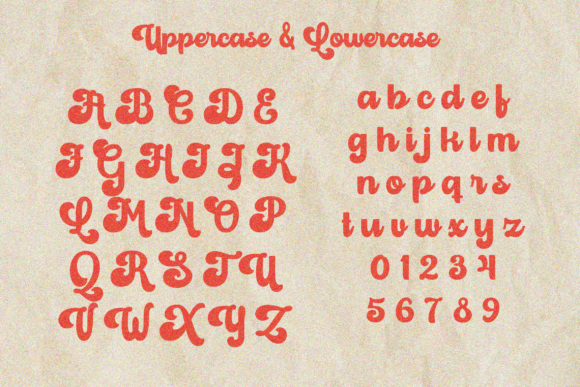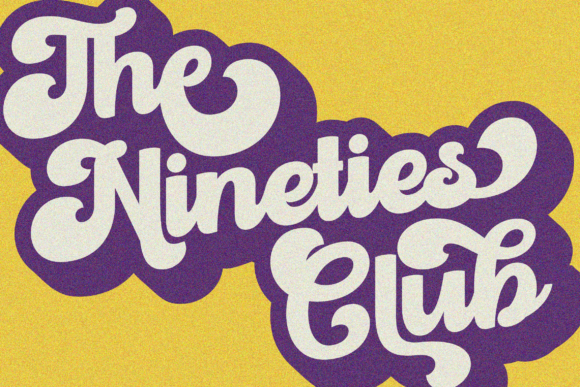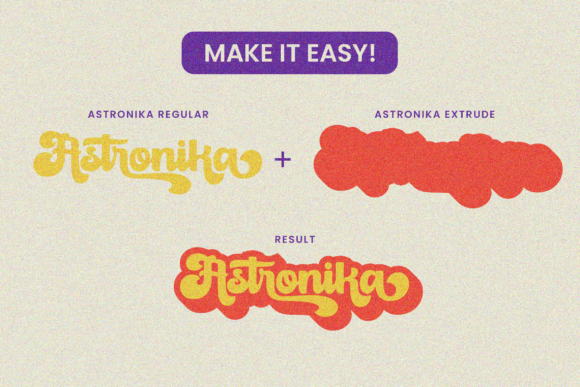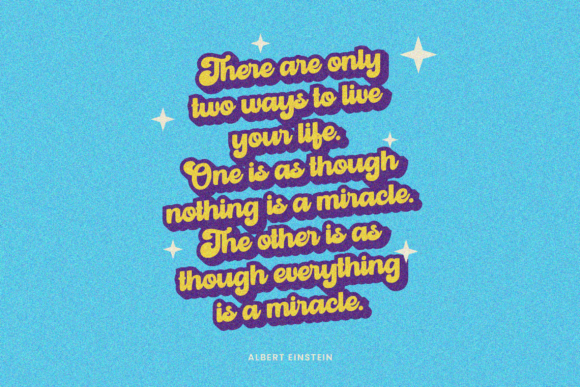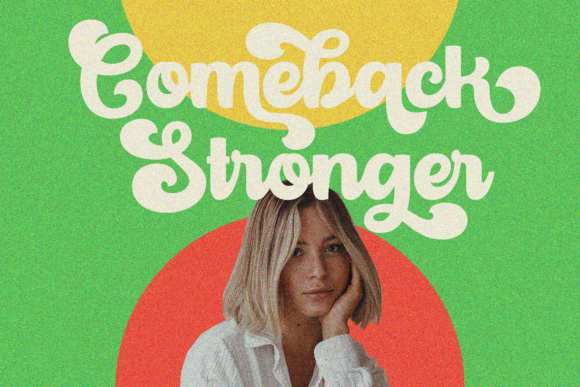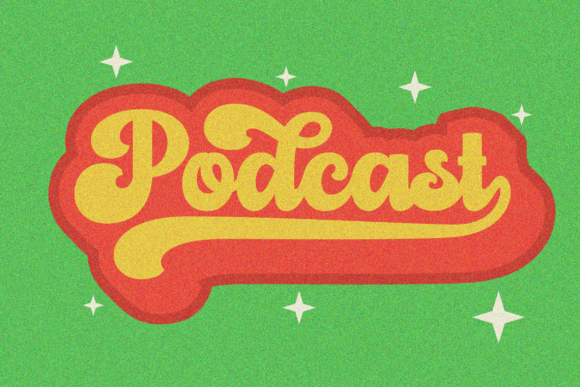
The Retro Revival: Unpacking the Astronika Font
I’ll never forget the design project that led me to discover the Astronika font. I was working on a vintage-themed poster for a client, and I was struggling to find the perfect font to capture the essence of the 70’s and 80’s. That’s when I stumbled upon Astronika, a retro and bold script font that instantly transported me to a bygone era. In this article, I’ll share my experience with Astronika, its features, and how to make the most of it in your designs.
As a designer, I was immediately drawn to Astronika’s unique charm. Here are a few things that I love about this font:
• ✨ Retro vibe: Astronika’s bold and playful script is reminiscent of the best 70’s and 80’s lettering.
• ✅ PUA encoded: This means that accessing glyphs and swashes is a breeze, giving you more creative freedom.
• 🔥 Versatile: Astronika is perfect for a wide range of design projects, from vintage posters to logos, badges, and more.
While Astronika is an excellent font, there are a few quirks to keep in mind:
• 🤔 Legibility at small sizes: Like many script fonts, Astronika can be tricky to read at very small sizes. Make sure to test it in your design before finalizing.
• ⚠️ Overuse of swashes: With so many swashes and glyphs available, it’s easy to get carried away. Balance is key to avoiding a cluttered design.
Astronika’s creator drew inspiration from the iconic lettering of the 1970s and 1980s. Imagine vintage posters, classic video games, and retro-futuristic advertisements – all of these elements influenced the design of Astronika. The result is a font that’s both nostalgic and fresh, perfect for designers looking to add a touch of retro flair to their work.
What type of designs is Astronika best suited for? Astronika is perfect for vintage-themed designs, such as posters, logos, badges, t-shirts, and more.
Is Astronika easy to read? Like many script fonts, Astronika can be challenging to read at small sizes. However, it’s designed to be legible at larger sizes, making it perfect for headlines and titles.